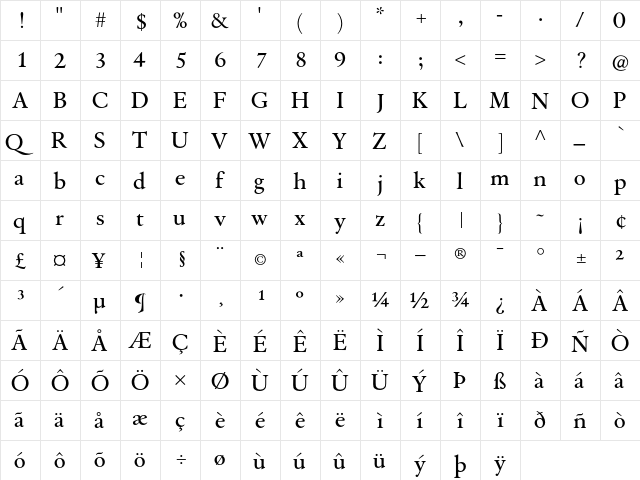
Augereau Bold
| Foundry | Expert Alphabets International, Ltd |
| Designer | Expert Alphabets International, Ltd |
Design Context for Augereau Typeface
Augereau offers clean, dependable letterforms without strong stylistic allegiance, making it a practical choice for designers who need flexibility. Its bold stroke weight gives it real presence on the page.